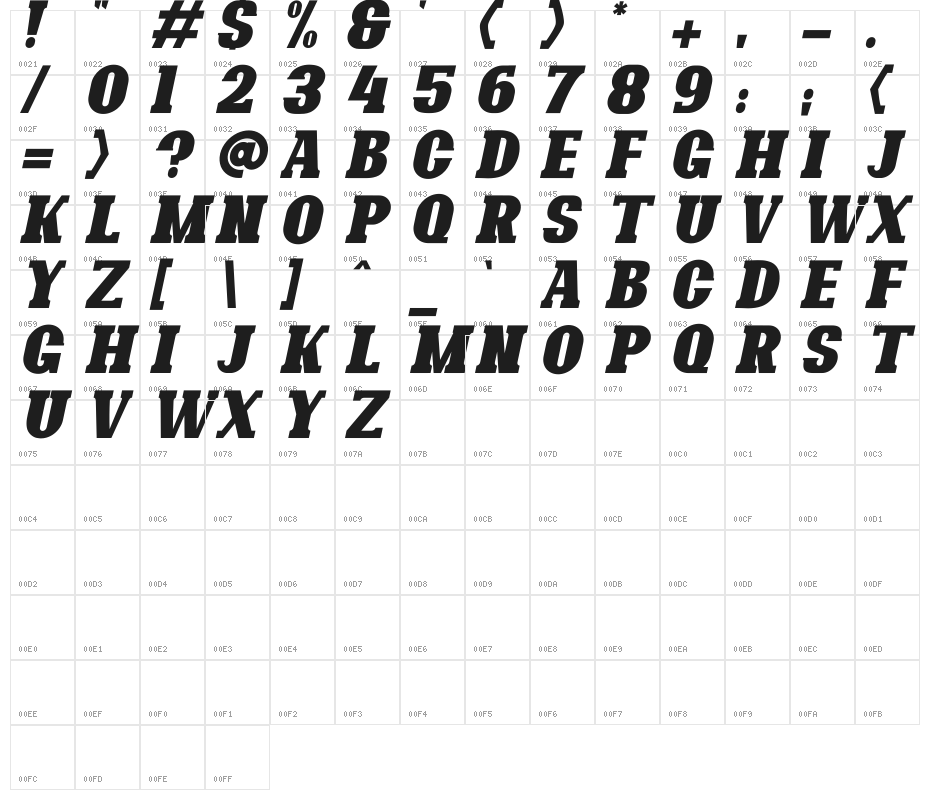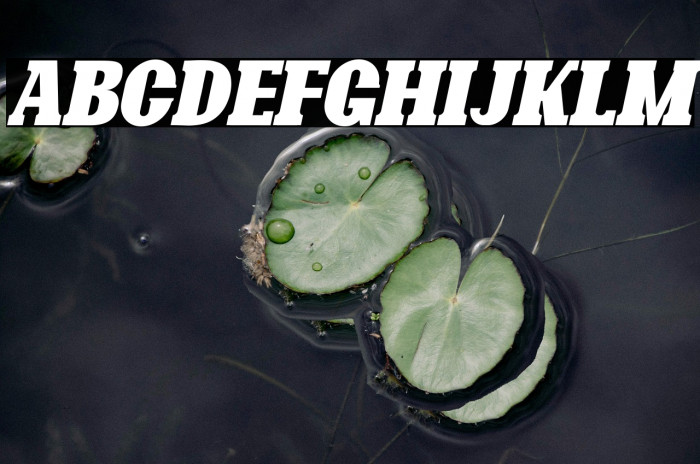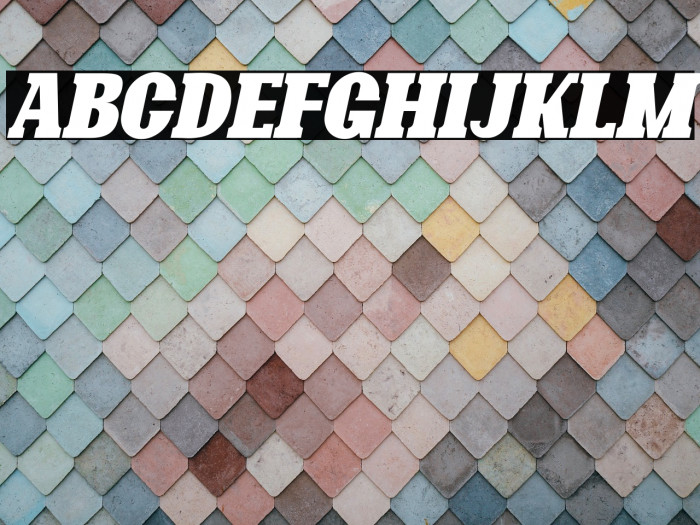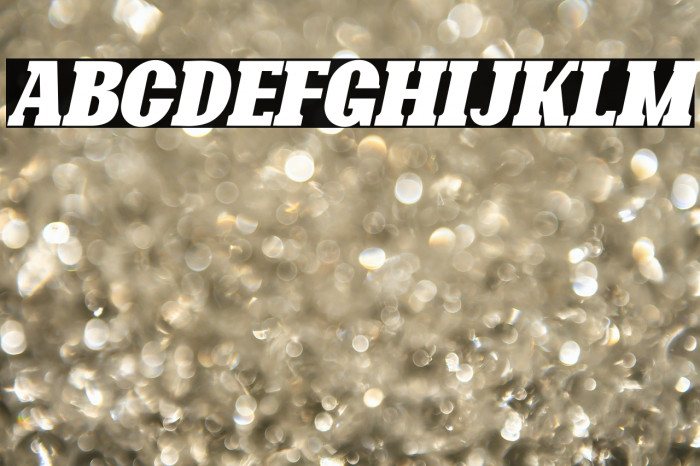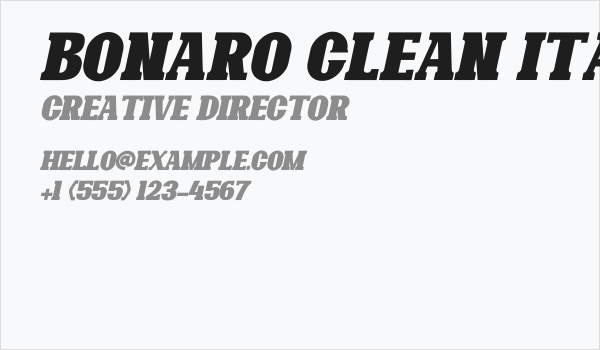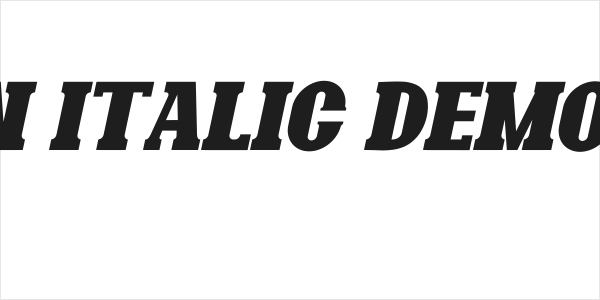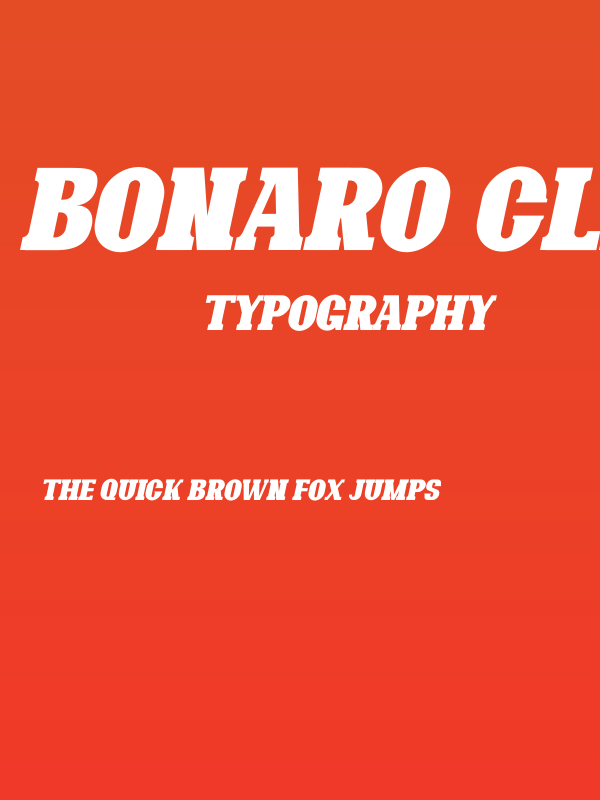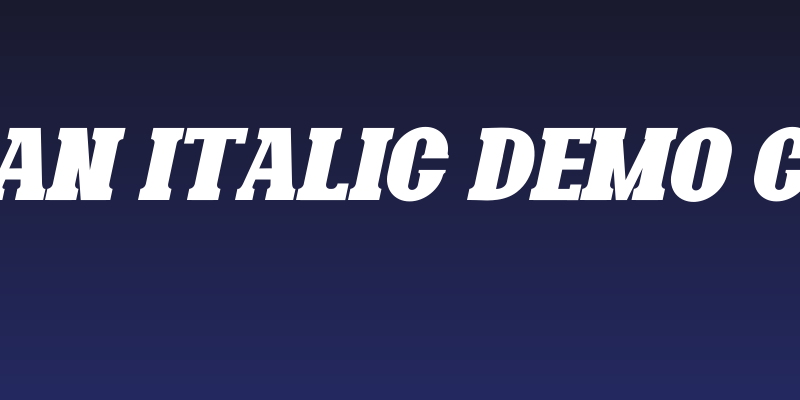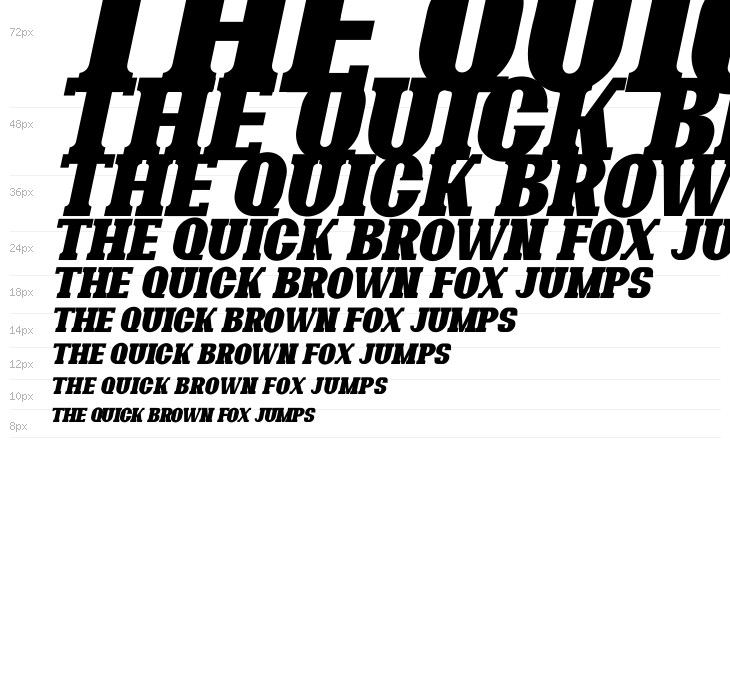
Bonaro Clean Italic Demo Clean Italic Font
Bonaro Clean Italic Demo Clean Italic Description
This font features a bold and dynamic italic style, characterized by its strong, angular serifs and thick strokes. The letters are slightly condensed, giving a compact and powerful appearance. The uppercase and lowercase letters maintain a consistent slant, enhancing the italic effect. The numbers and special characters follow the same bold and italicized design, ensuring uniformity across all characters. The font's high contrast between thick and thin strokes adds to its striking and impactful presence, making it suitable for attention-grabbing designs.
| Proposed Projects | Ideal for headlines, posters, branding, and any project requiring a bold and dynamic typeface. |